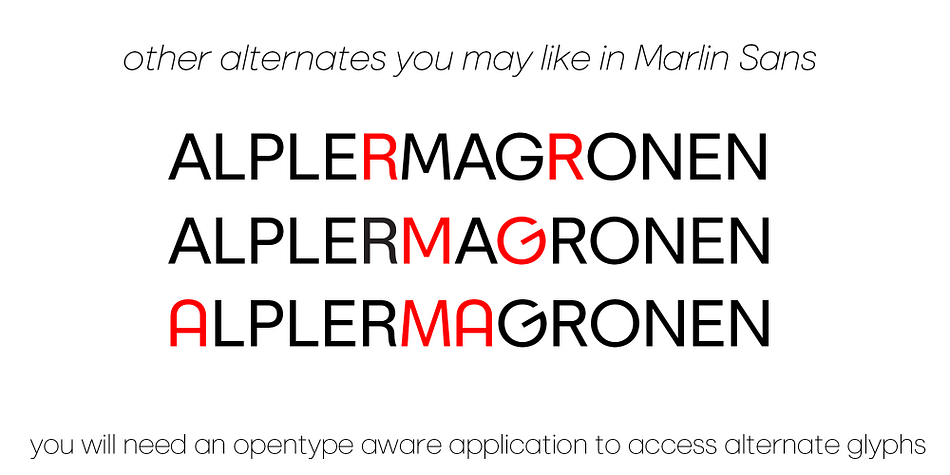
Marlin Sans
Designed by Michael Hagemann, Marlin Sans is a sans serif font family. This typeface has sixty styles and was published by FontMesa.
FontMesa is pleased to introduce our latest sans serif type font design Marlin Sans, clean simple and perfect.
Marlin Sans is your classic everyday use sans serif that’s packed with alternate letters that I’m sure you’re going to enjoy.
Marlin Sans comes with two sets of italics, the standard 12° italic and a 6° slant version that’s perfect for headlines and signage where you may want the look of an italic with half the slant.
Marlin Sans offers two versions, the regular which has round dots, periods and accents and the SQ version which includes square dots, periods and accents.
Both versions include the same set of stylistic alternates which you will need an opentype aware application such as Adobe Illustrator to access the alternate glyphs in Marlin Sans.
Within Marlin Sans is one alternate letter that I’m pretty fond of, you’ll notice it right away as a slightly rotated G, I’m sure you’ll find the perfect project to use it on.
You’ll also find alternates in Marlin Sans that allow you to go without descenders on the g, j, q, y.
Right about now you’re probably wondering what the sets of three lines are for in Marlin Sans?
They’re wings, hard or rounded, simply type out a name or word then place a wing on each side or use the center wing with each side wing and layer a word over the top.
You’ll also find a Unicase E in Marlin Sans, when creating the uppercase Schwa glyph I thought, well why not flip it over and add it as a Unicase letter?
What about the numbers in Marlin Sans? Does it have oldstyle and tabular figures? don’t worry about it we’ve got you covered.
In saltwater fishing the Marlin fish is considered the King of the ocean and a royal symbol in some cultures.
So put on your flip flops then explore and discover the depths of the all new Marlin font family.